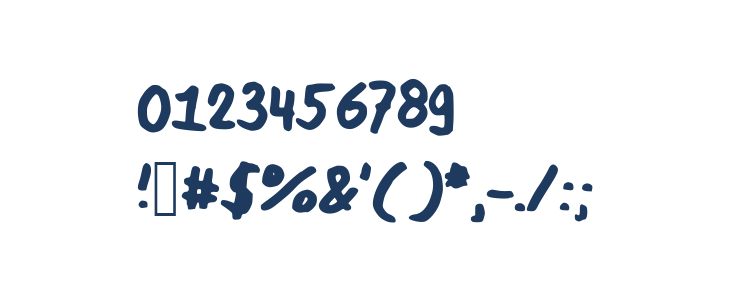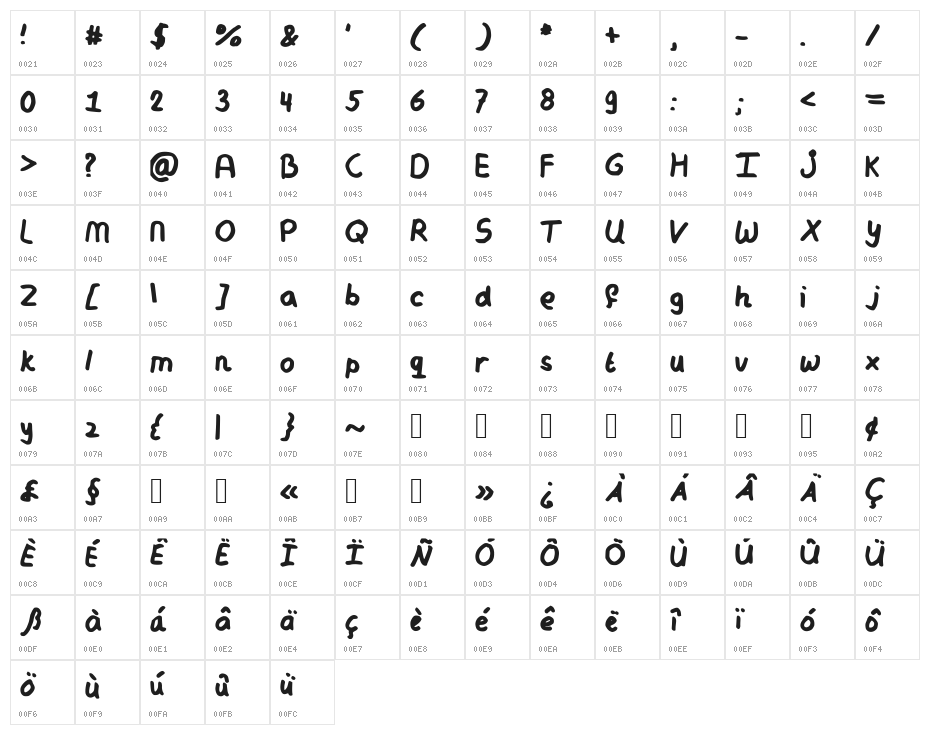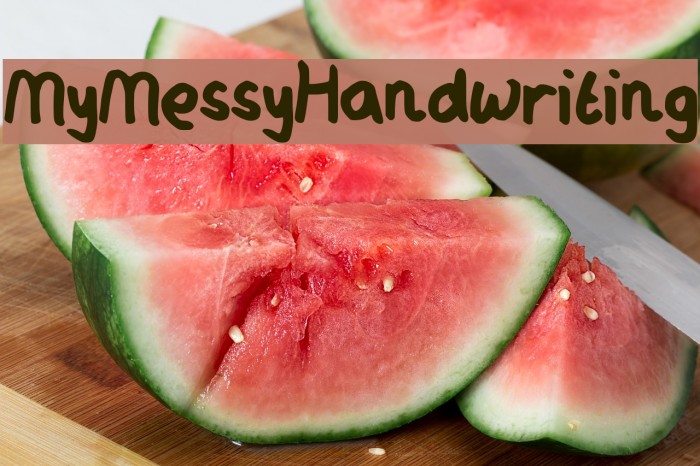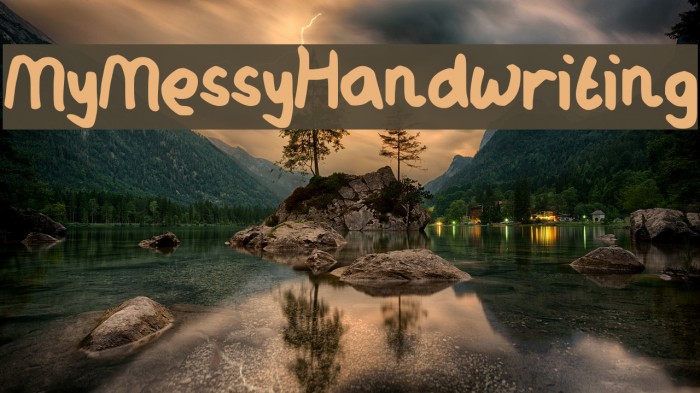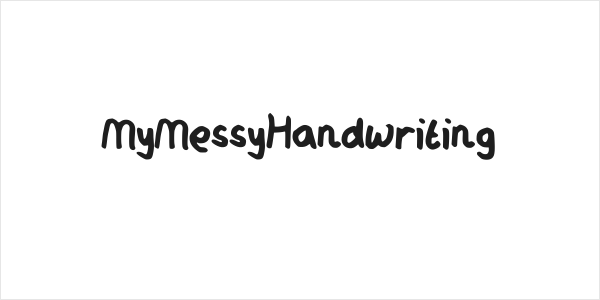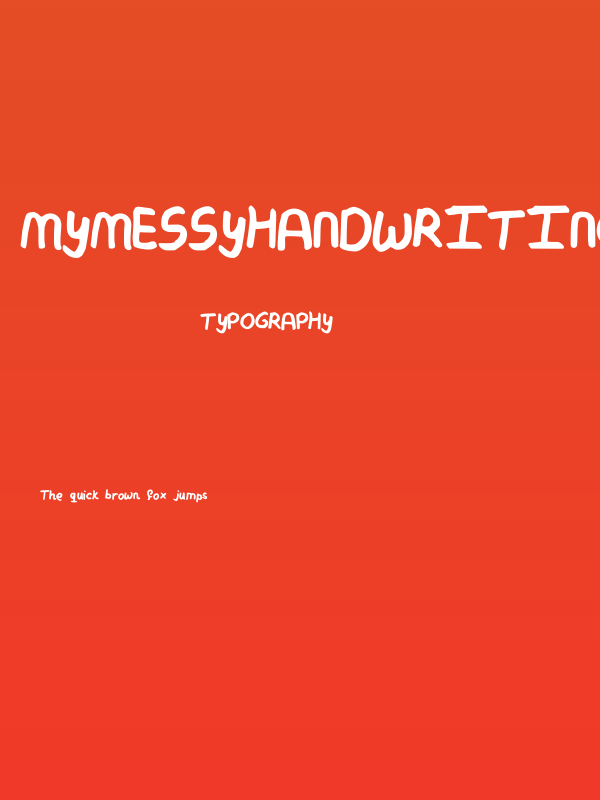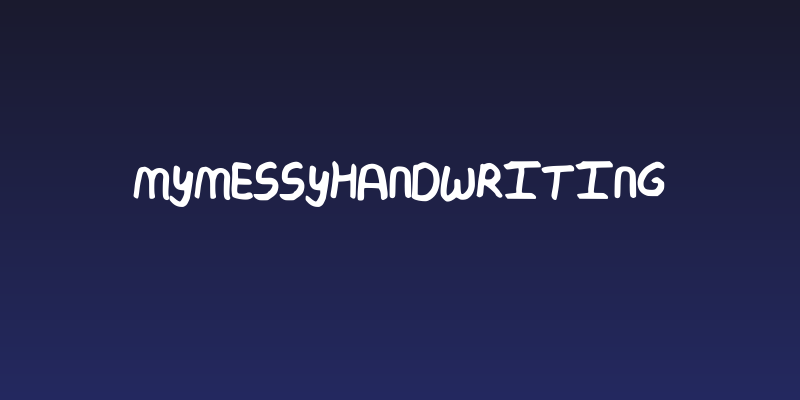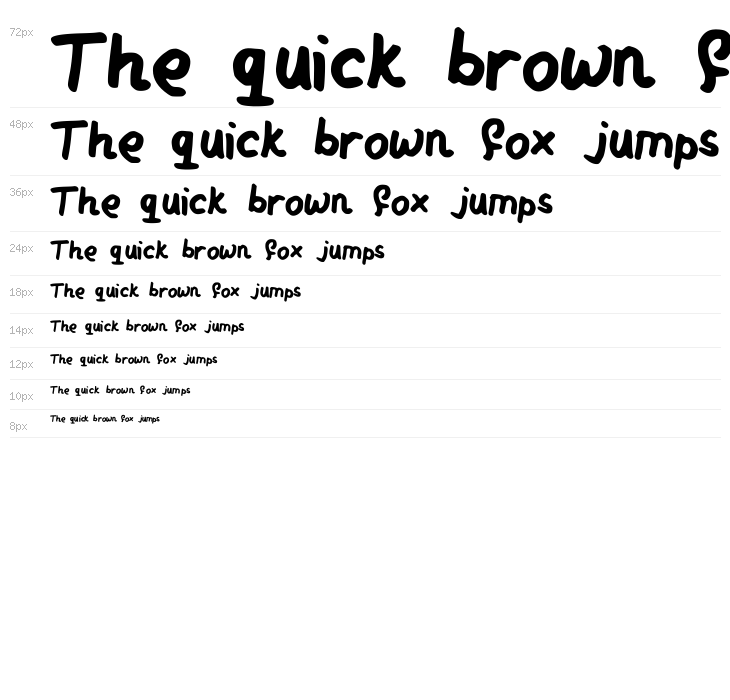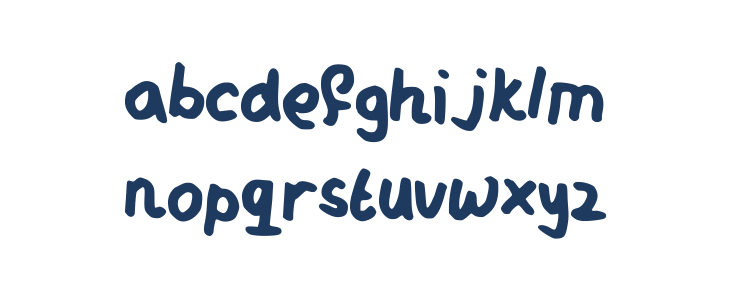
MyMessyHandwriting Font
MyMessyHandwriting Description
This font exudes a playful and informal vibe, reminiscent of casual handwriting with a bold and rounded appearance. Each character is uniquely crafted with a slightly uneven baseline, adding to its charm and authenticity. The strokes are thick and consistent, giving it a strong presence on any page. The uppercase and lowercase letters maintain a cohesive style, while the numerals and special characters complement the overall look. This font is perfect for projects that require a personal touch or a fun, approachable aesthetic.
| Overall Style | Playful, Informal |
| Proposed Projects | Ideal for children's books, greeting cards, playful branding, and informal invitations. |